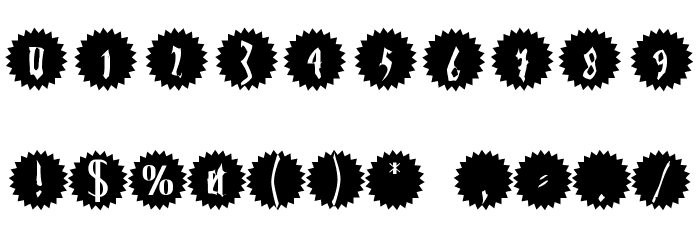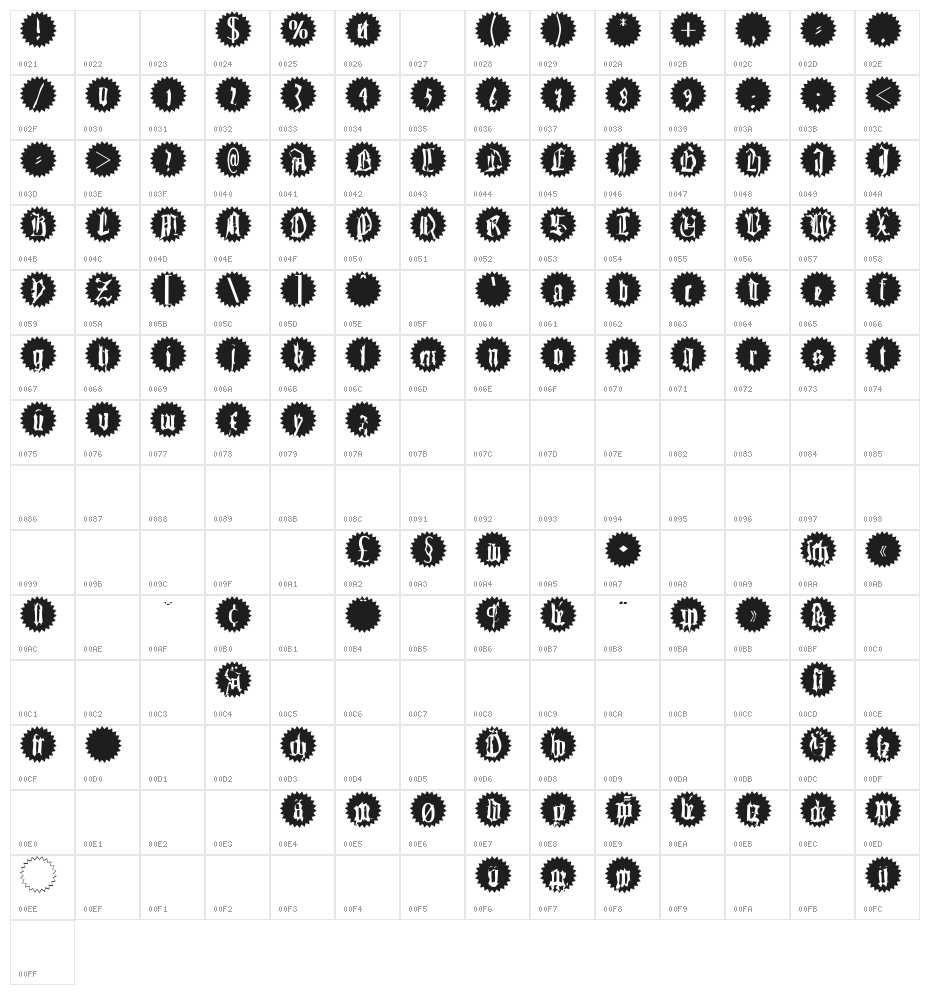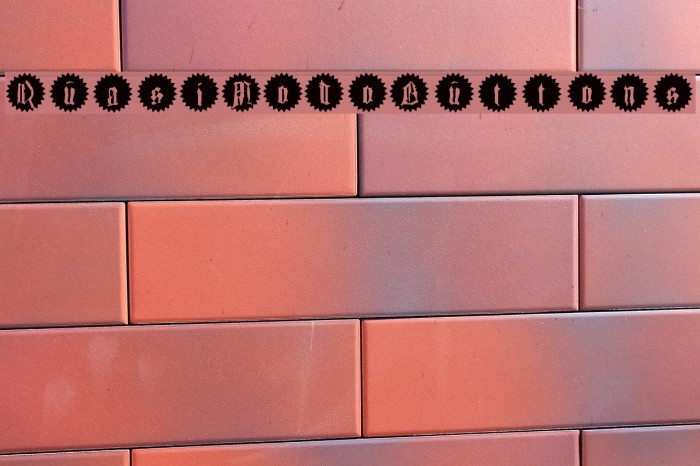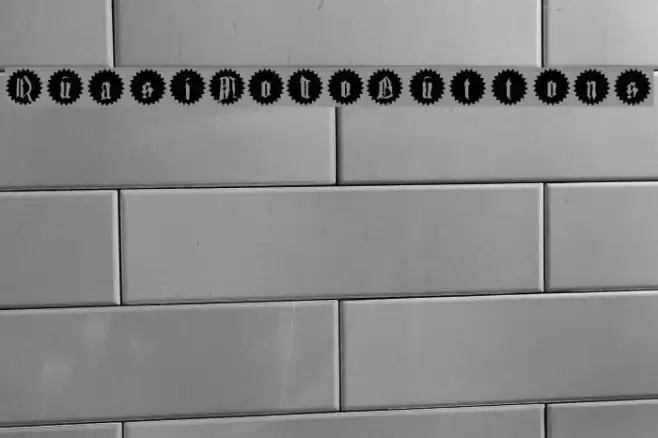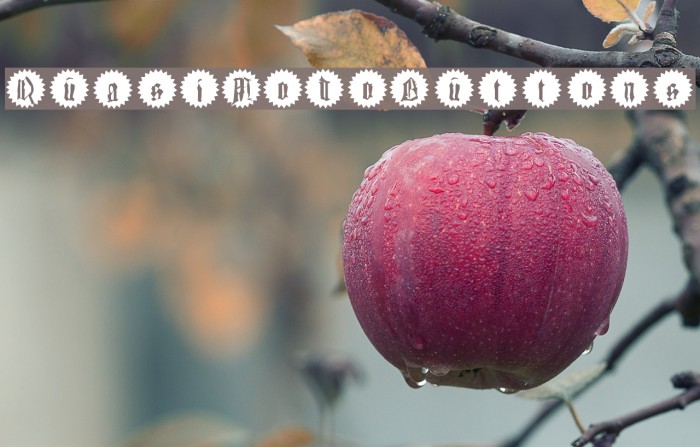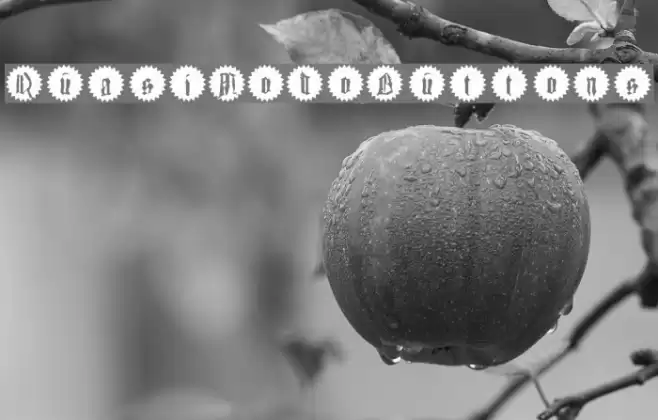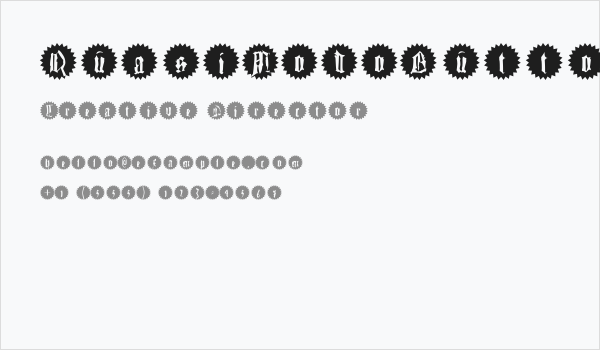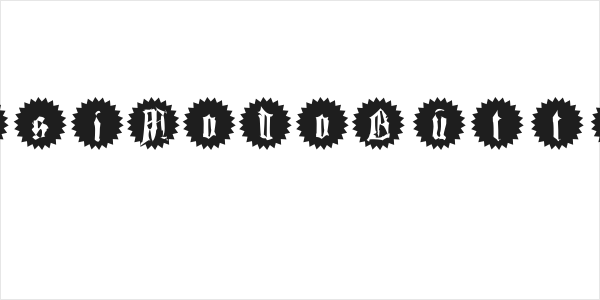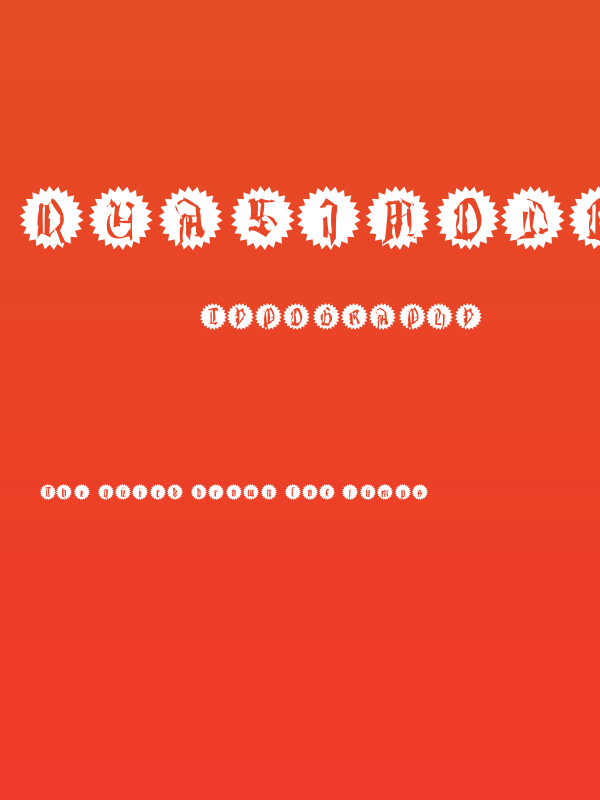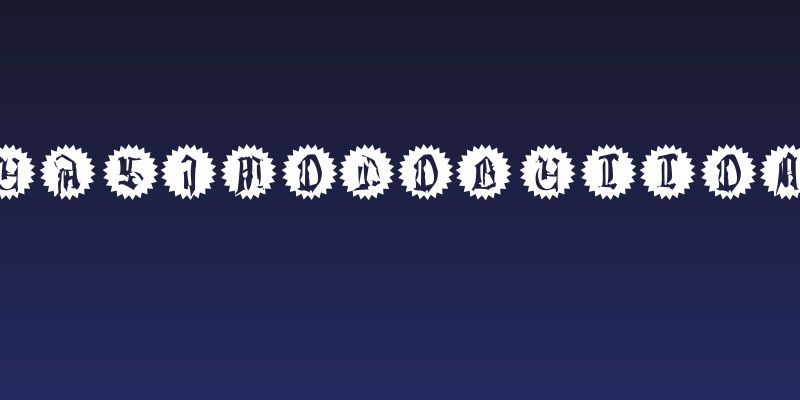
QuasiModoButtons Font
QuasiModoButtons Description
This font features a bold and striking design, with each character encased in a jagged, circular outline that resembles a gear or saw blade. The letterforms themselves are reminiscent of a gothic or blackletter style, with sharp angles and dramatic strokes. The combination of the spiky border and the intricate letter design creates a visually intense and eye-catching effect. This font is highly decorative and makes a strong visual statement, suitable for projects that require a bold and unconventional aesthetic.
Proposed ProjectsIdeal for album covers, posters, or any design project that seeks to convey a sense of edginess or intensity.